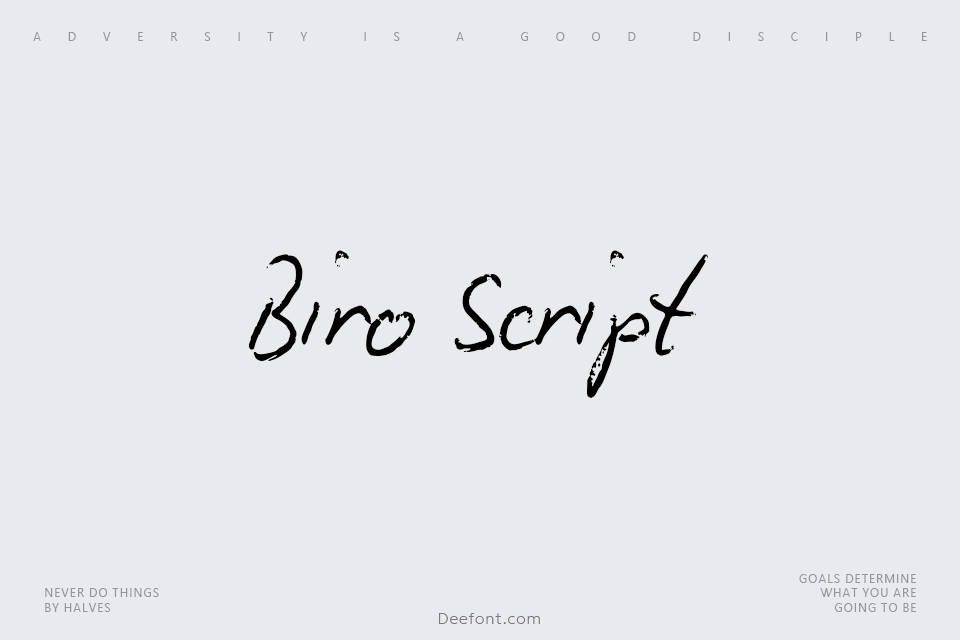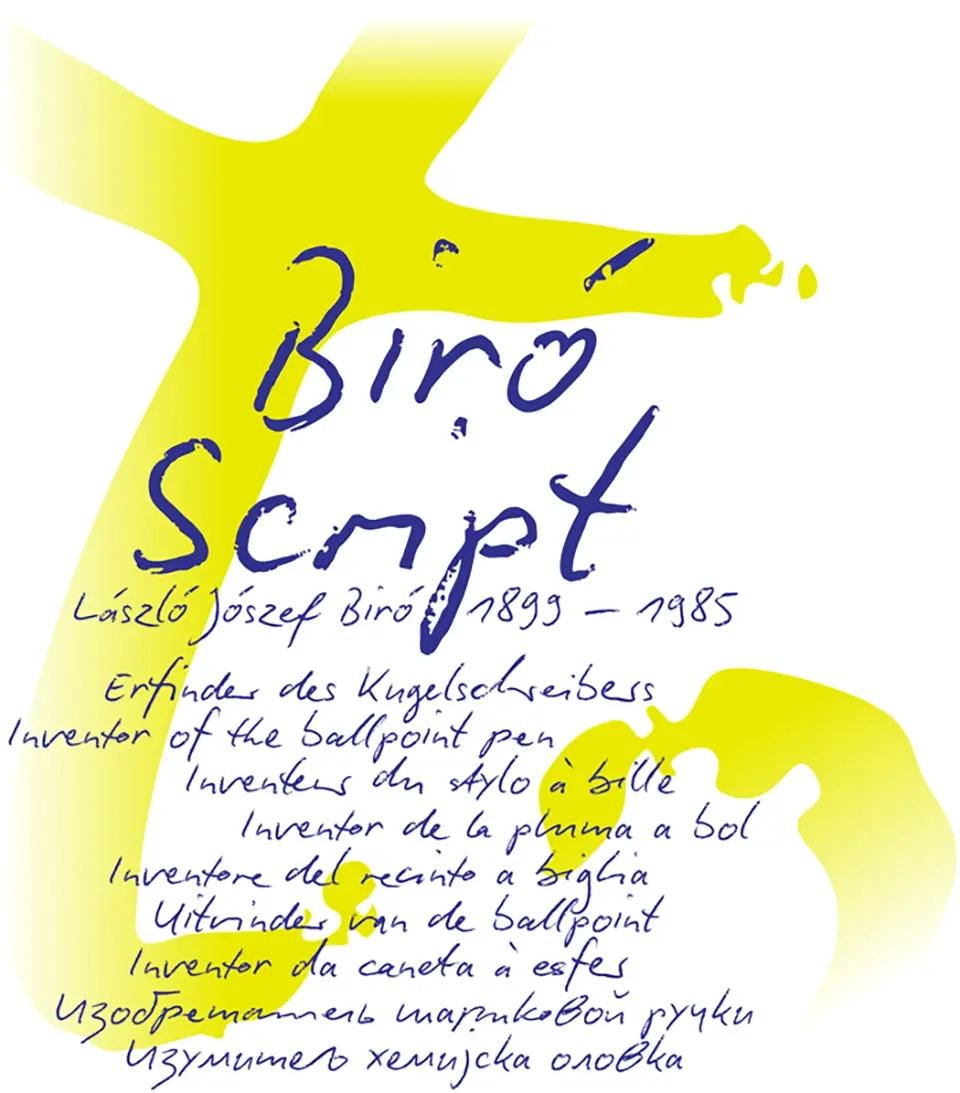
Biro Script Font
Biro Script is an authentic handwritten typeface that authentically captures the distinctive rhythm of ballpoint pen writing. Designed to mimic everyday handwriting, this casual script font features fluid strokes, natural curves, and slightly rough texture that conveys a personal, approachable feel. Perfect for creative invitations, greeting cards, personal branding, and artistic projects requiring warmth and individuality. The typeface brings genuine character to designs while maintaining legibility and charm.